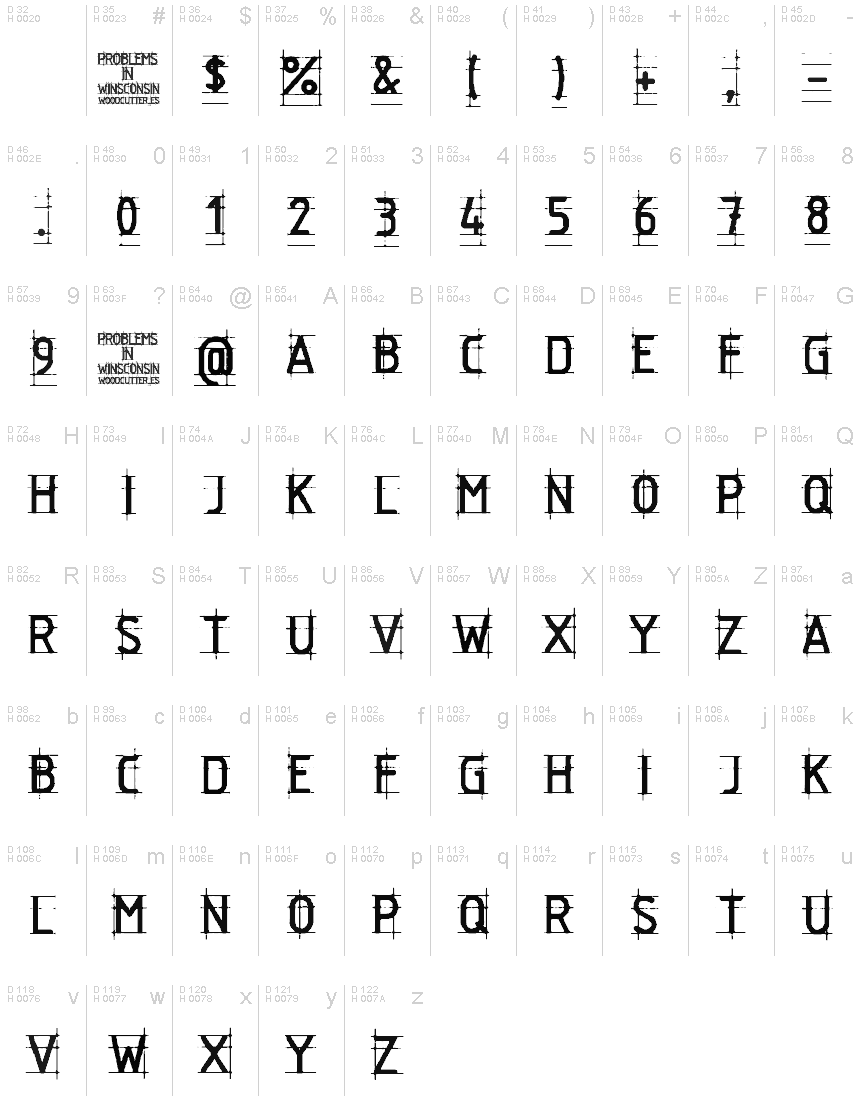
Problems in Winsconsin
"Problems in Winsconsin" is a bold, techno-inspired display font crafted by the skilled designer Woodcutter. Its sharp, geometric letterforms and angular, razor-sharp edges convey a sense of industrial power and modern dynamism. The font's distinct personality shines through its exaggerated proportions, geometric patterns, and unconventional stroke variations - features that make it an eye-catching choice for headlines, logos, and other high-impact design applications.
With its striking aesthetic and versatile appeal, "Problems in Winsconsin" is well-suited for a wide range of contemporary design projects, from packaging and branding to editorial layouts and digital interfaces.
Problems in Wisconsin